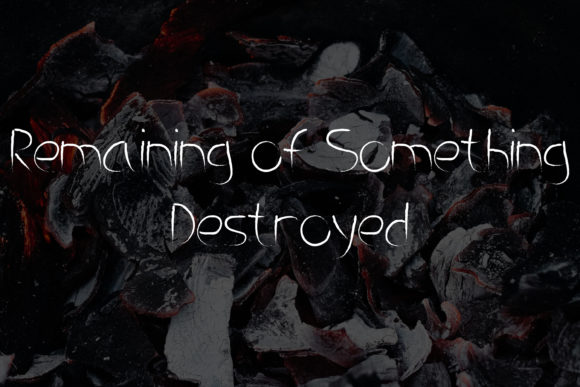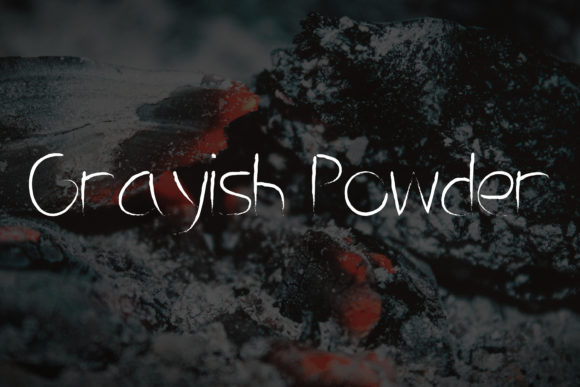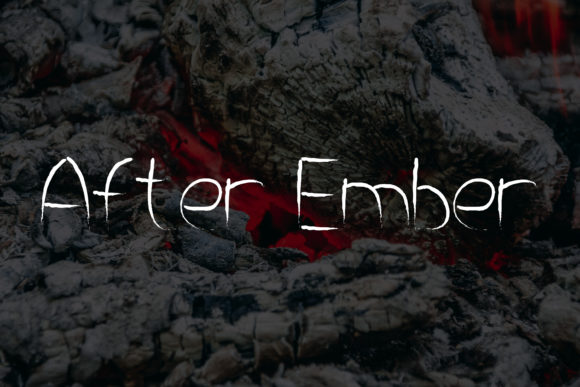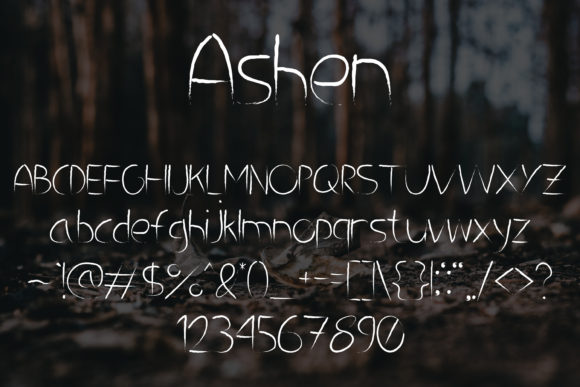
First Impressions: A Cool and Unique Font
Ashen Font is a display font that features uniquely shaped letters, giving it a distinct touch that’s hard to find elsewhere. The font’s cool and edgy vibe makes it perfect for designers, crafters, and creative hobbyists looking to add a bit of personality to their work.
• ✨ Unique and quirky letterforms that add a touch of personality to any design
• ✅ Highly legible, even at larger font sizes
• 💡 Versatile and can be used for a wide range of projects, from logos to posters
• 🎨 Works well with a variety of color schemes and design styles
• 🤔 Limited use for body text, as it’s primarily designed for display purposes
• ⚠️ May not work well for very small font sizes, as some details can get lost
Ashen Font comes with a range of OpenType features and glyphs that can enhance your designs. These include:
• Ligatures: Combine letters for a more unique look
• Stylistic alternates: Switch between different font styles for added variety
• Glyphs: Access additional characters and symbols to add more personality to your designs
The Designer Behind Ashen Font: A Backstory
Ashen Font was designed by a talented typographer who’s passionate about creating unique and functional fonts. With a keen eye for detail and a love of experimentation, the designer aimed to create a font that’s both stylish and versatile. While the designer’s exact inspiration may be unknown, it’s clear that Ashen Font was crafted with care and attention to detail.
Q: What is Ashen Font best used for?
A: Ashen Font is best used for display purposes, such as titles, headings, and logos.
Q: Is Ashen Font available in different font weights?
A: Ashen Font may come in different font weights or styles, but this will depend on the specific version of the font.